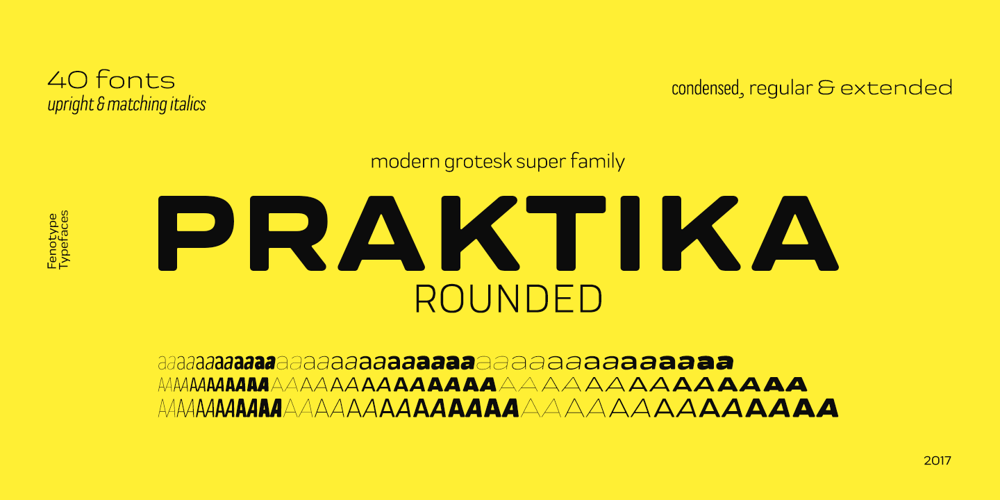
Praktika Rounded Font Family was designed by Emil Karl Bertell, Teo Tuominen and published by Fenotype. Praktika Rounded contains 40 styles and family package options. Contemporary grotesk super family If you happened to sleep on Praktika – the previous bestseller of Fenotype – don’t worry, as here’s its new rounded counterpart. Perhaps even more functional than its predecessor, Praktika rounded has a distinct look & feel of its own – rather contemporary and urban than classicist. Praktika Rounded shares the same seven weights and three widths found in the original Praktika family, as well as the same familiar Open Type features: • Built-in small capitals • Both lining and old style numerals, in tabular or proportional form • Superscript and subscript numerals • Many alternate characters However, if you can’t decide on whether you should get original Praktika or the rounded version, they are also available as a bundle for a rather lucrative price.